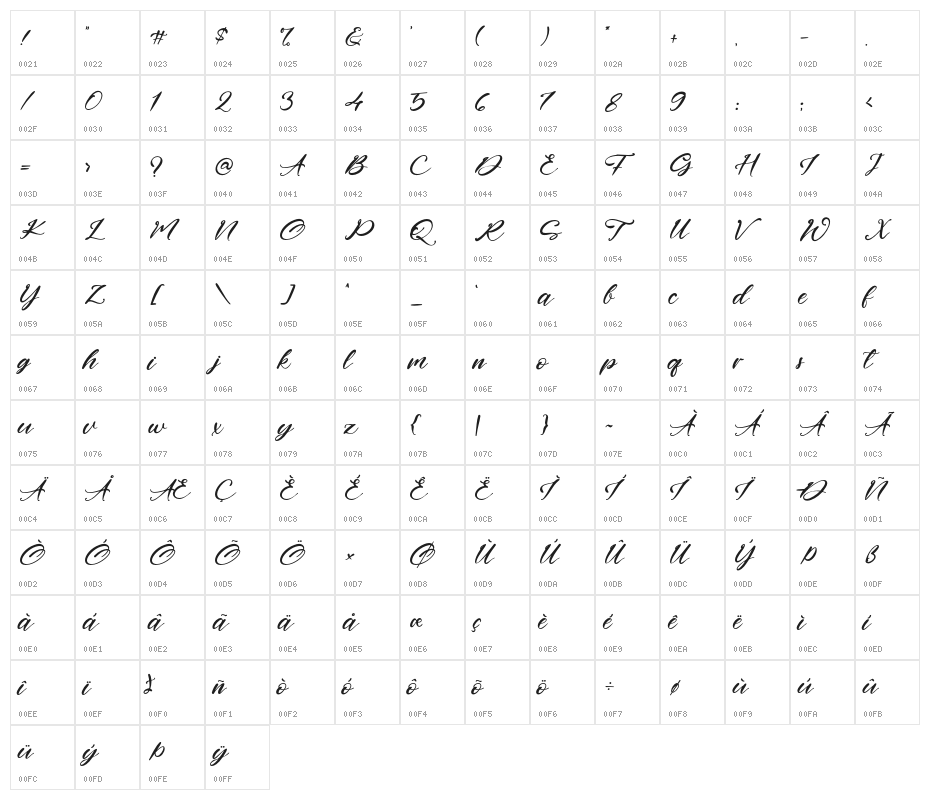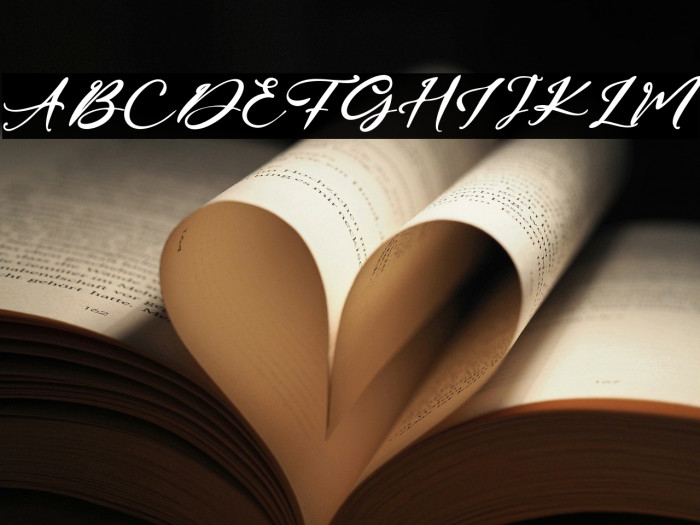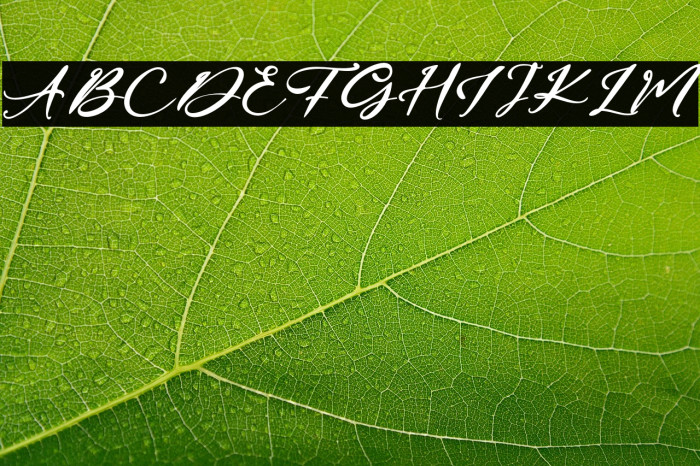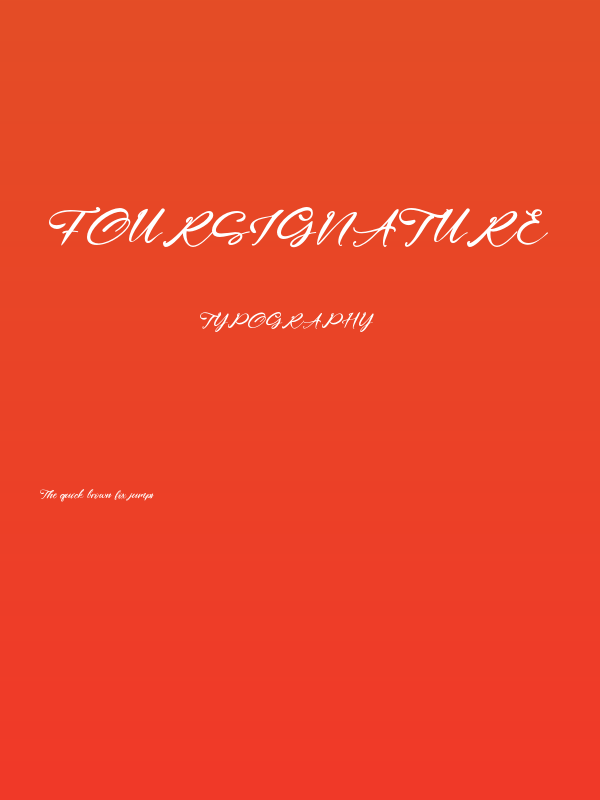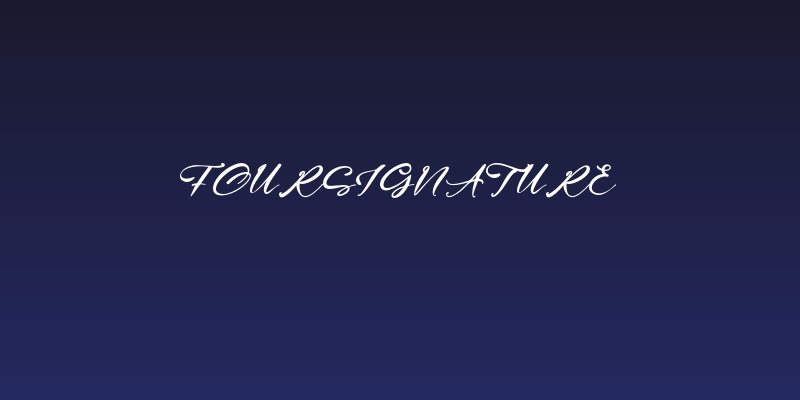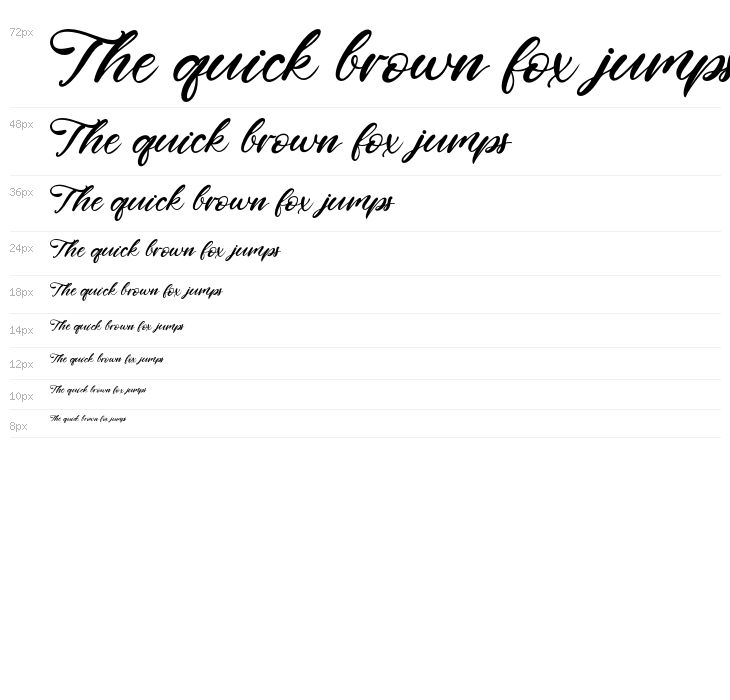
FourSignature Font
FourSignature Description
This elegant script font features fluid, cursive strokes that mimic the natural flow of handwriting. The uppercase letters are characterized by their sweeping curves and decorative flourishes, while the lowercase letters maintain a consistent, flowing style. The numerals are designed to complement the alphabet with similar curves and a sense of movement. Special characters are integrated seamlessly, maintaining the overall aesthetic. This font exudes sophistication and is ideal for projects that require a personal, handwritten touch.
| Overall Style | Elegant, Handwritten |
| Use Case | Logos, Invitations, Personal Branding |
| Proposed Projects | Ideal for wedding invitations, personal branding, greeting cards, and elegant packaging designs. |